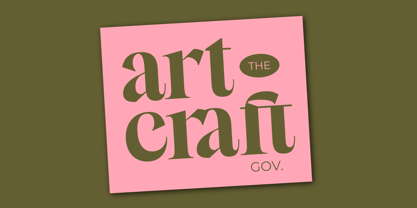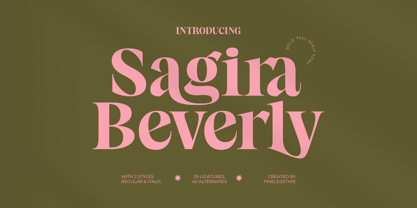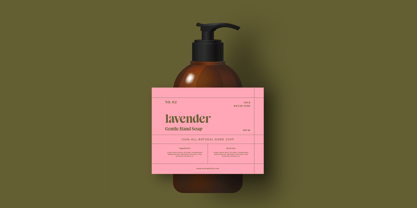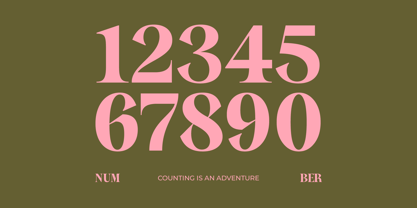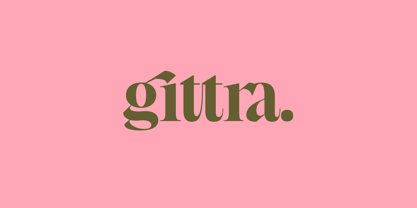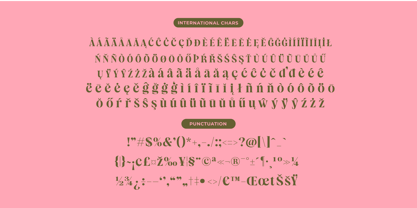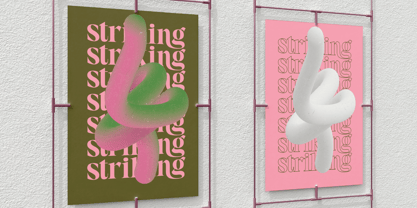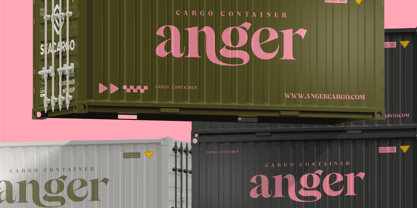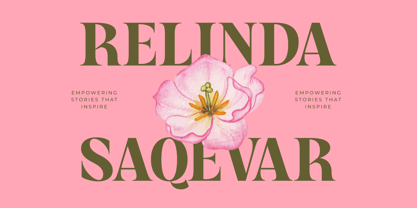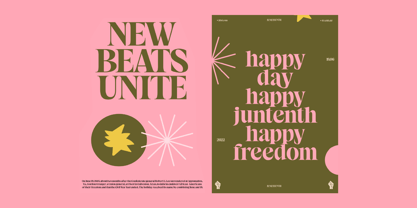
Sagira Beverly
by Timelesstype Studio
The Sagira Beverly Font Family was designed by Heru Utama Putra and published by Timelesstype Studio. Sagira Beverly contains 2 styles and family package options. More about this family
Sagira Beverly is a bold tall serif font that combines modern sophistication with timeless elegance. With 29 ligatures and 40 alternates across two styles (Regular and Italic), it offers flexibility for creating striking headlines, refined logos, and stylish editorial layouts. Perfect for fashion branding, magazine covers, posters, and packaging, Sagira Beverly delivers a confident and elegant typographic statement for any creative project.